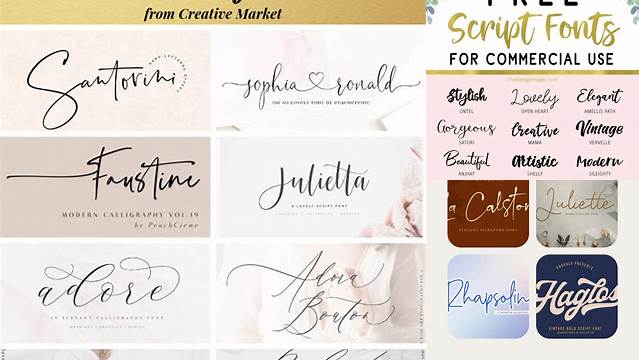
Top Free Script Fonts For Stunning Logos
Hey there, design enthusiasts! If you're on the hunt for the perfect script font to elevate your logo, but you're working with a tight budget, you've come to the right place. Creating a memorable logo doesn't have to break the bank. There's a treasure trove of amazing, free script fonts out there, just waiting to be discovered. This article is your ultimate guide to finding the very best free script fonts for logos, helping you add that touch of elegance, personality, and professionalism without spending a dime. We'll dive into the characteristics that make a script font ideal for logos, explore various styles, and highlight some of the top-notch free options available. Get ready to transform your logos with some seriously stylish typography! Let's get started, shall we?
H2: Understanding Script Fonts in Logo Design
Alright, before we jump into the fonts themselves, let's chat about why script fonts are so popular in logo design. Guys, script fonts are essentially fonts that mimic handwriting. They can range from super formal and elegant, like a classic calligraphic style, to more casual and playful, resembling everyday penmanship. They bring a human touch to a logo, making it feel more approachable and personalized. Script fonts are fantastic for logos because they can communicate various brand personalities. A sleek, flowing script can convey sophistication and luxury, making it perfect for brands targeting a high-end audience. On the other hand, a more whimsical script can represent a fun, friendly, and youthful brand. It's all about matching the font's style to your brand's core values and target audience. The goal is to make a strong visual impression and establish a connection. When choosing a script font for a logo, consider readability. While these fonts can be beautiful, some can be challenging to read at smaller sizes. Ensure the font is legible, especially in digital formats. The script font should also complement the overall design. Consider the weight, spacing, and flourishes of the font to ensure it blends seamlessly with the other elements of your logo. The right script font can make your logo stand out and become instantly recognizable. So, as you can see, understanding how to apply the right script font to your logos is crucial for your design's success.
H3: Key Characteristics of Effective Script Fonts for Logos
So, what makes a script font truly effective for a logo? Let's break down the key characteristics you should be looking for. First and foremost, readability is critical. Your logo needs to be instantly recognizable and easy to understand at a glance. Avoid fonts that are overly ornate or complex. The best script fonts for logos strike a balance between style and clarity. Next, consider the personality of the font. Does it match your brand's vibe? A font with a classic, elegant style might suit a luxury brand, while a more modern, playful script could be perfect for a startup or a creative business. Also, the versatility of the font is essential. Can the font be used in various applications – from websites and business cards to social media profiles? A good script font should look great across different platforms. The font's weight and style also matter. A delicate, thin script can convey elegance, while a bolder font might be better suited for grabbing attention. Remember to test the font in various sizes and colors to ensure it maintains its impact. Finally, pay attention to the licensing. With free fonts, it's vital to check the license to ensure it permits commercial use. Make sure you can use the font on your logo without any legal issues. By focusing on these characteristics, you'll be well on your way to choosing a script font that not only looks great but also effectively represents your brand. These features must work together to create an awesome design. If all of these things come together and work, then your logo will make an impression.
H2: Exploring Different Script Font Styles for Logos
Alright, let's explore the diverse world of script font styles. Knowing these styles will help you choose the best one for your logo. Formal Script fonts are elegant, classic, and often inspired by calligraphy. These are perfect for brands that want to convey a sense of sophistication, tradition, or high-end quality. Casual Script fonts have a more relaxed, handwritten feel. They're ideal for businesses that want to appear approachable, friendly, and modern. Then there are Brush Script fonts, which mimic the look of a brush and ink. These fonts offer a bold, dynamic look and can add a creative, artistic touch to your logo. Next, there are Modern Script fonts, often characterized by clean lines and a contemporary feel. They're great for brands that want to project a stylish, up-to-date image. We also have Handwritten Script fonts, which emulate natural handwriting styles. They offer a personal and authentic touch, perfect for businesses that value individuality and creativity. Lastly, there's Calligraphic Script fonts, which are highly decorative and often feature elaborate flourishes. These fonts are best used when you want a strong visual impact and want to emphasize elegance. Each style has its own unique characteristics. Choosing the right style depends on your brand's personality, target audience, and the overall message you want to communicate. You need to consider all these things so that your logo can deliver its best.
H3: The Elegance of Formal Script Fonts in Logo Design
Let's dive deeper into formal script fonts. These fonts are characterized by their classic, elegant look. They often draw inspiration from traditional calligraphy and are perfect for brands that want to convey sophistication and prestige. These fonts feature a flowing, graceful style that exudes a sense of luxury and refinement. When using a formal script font in your logo, you instantly communicate a sense of timelessness. They are perfect for brands like high-end fashion, luxury goods, law firms, and other businesses aiming to attract a discerning clientele. When choosing a formal script, pay attention to the details. Look for fonts with consistent stroke thickness, balanced letterforms, and subtle flourishes. Readability is still important, even with formal scripts. Choose fonts that are beautiful and easy to read. You'll also want to make sure the font complements other design elements in your logo. Try pairing a formal script with a simple, clean sans-serif font for a balanced and professional look. If you get all of these things right, then your logo will have an impact. The result will be a logo that exudes elegance, making a lasting impression on your audience and reinforcing your brand's premium image.
H2: The Charm of Casual Script Fonts for Logos
Now, let's explore casual script fonts, which are the opposite of formal scripts. These fonts have a more relaxed, friendly, and approachable feel. If you want your brand to be seen as down-to-earth and fun, a casual script font might be your perfect match. They mimic the look of natural handwriting, and they create a sense of authenticity and warmth. Casual script fonts are perfect for a variety of businesses, especially those that want to connect with a younger, more modern audience. Think of startups, creative agencies, and brands in the food and beverage industries. These fonts can add a touch of personality and approachability to your logo. Unlike formal scripts, casual scripts often feature a more playful style, with variations in stroke thickness, letterforms, and sometimes even a touch of imperfection that makes them feel uniquely human. When using a casual script, consider the overall tone you want to convey. If you want a fun vibe, pair your font with bright, bold colors. If you want something that's slightly more sophisticated, opt for a softer color palette. Readability is still vital. Make sure your chosen font is easy to read at various sizes. Casual scripts create a logo that is not only visually appealing but also relatable, making your brand more accessible to your target audience.
H3: Best Practices for Using Script Fonts in Logos
Okay, now let's talk about some best practices for using script fonts in your logos. First and foremost, keep it simple. Avoid using overly elaborate or complex script fonts. The best logos are often those that are easily recognizable and memorable. Make sure the script font is legible, even at smaller sizes. Readability is vital, especially when your logo appears in various applications, like on a website, business card, or social media. Consider the overall design. Pair your script font with a complementary font, such as a clean, simple sans-serif font. This contrast can create a balanced and visually appealing look. Also, it's very important to ensure the font works well with your brand's personality and the message you want to convey. If your brand is all about fun and creativity, choose a more playful script font. If you are a high-end brand, choose a more elegant one. Don't go overboard. Avoid using too many different fonts in your logo. This can make the design appear cluttered and confusing. Stick to a maximum of two or three fonts. Finally, remember that your logo needs to be versatile. It should look good in various colors, sizes, and formats. Consider how it will look on different backgrounds and applications. Follow these best practices to create a logo that is not only visually stunning but also effective in representing your brand.
H2: Top Free Script Fonts for Logos: A Comprehensive List
Alright, let's get to the good stuff. Here's a list of some of the best free script fonts for logos. Remember to always check the license before using any font commercially. Playlist Script is a gorgeous handwritten font that adds a touch of personality to your logos. It's perfect for brands that want to appear friendly and approachable. Great Vibes is an elegant, flowing script font with a classic feel. This font is perfect for luxury brands or those aiming to exude sophistication. Dancing Script is a more casual and playful font, giving logos a fun and friendly vibe. Pacifico is a vintage-inspired script font with a retro feel. This font can add a nostalgic touch to your logos. Satisfy is a modern, stylish script font. Perfect for brands that want to project a contemporary image. These are just a few examples. The world of free script fonts is vast, and there are many more options out there. Take your time to explore different fonts and find the ones that best suit your brand's unique personality and style. Don't be afraid to experiment! Once you find a font you love, make sure it meets the requirements. Good luck!
H3: Detailed Review of Popular Free Script Fonts for Logo Design
Let's take a closer look at some of the popular free script fonts. We'll talk about what makes them special. Playlist Script is known for its natural, handwritten appearance. The font feels personal and inviting. It's a great choice for brands in the creative, food, or lifestyle industries. The font is easy to read. Great Vibes has a graceful and flowing style, perfect for creating a sense of luxury and elegance. Its classic design makes it suitable for brands targeting a sophisticated audience, like beauty, fashion, or wedding businesses. Dancing Script is a more lively and informal font, great for brands that want to portray a fun and friendly image. It's a great option for businesses targeting a younger audience. Pacifico is a vintage-inspired script that evokes a sense of nostalgia. Its retro aesthetic makes it perfect for brands that want to capture a vintage or retro feel. It is also good for a surfer-style aesthetic. Satisfy is a more modern and stylish font. Its clean lines and contemporary feel make it perfect for brands that want to project a modern and stylish image. It is good for fashion, or beauty brands. When choosing a font from this list, consider the overall look. The goal is to make a long-lasting impression. Take some time to try them and see what suits you the best.
H3: Recap: Key Takeaways for Choosing Script Fonts
Let's recap the key takeaways for choosing script fonts. Keep these points in mind. Readability. Legibility is the top priority. The font must be easy to read at all sizes. Brand Personality. Does the font match your brand? Choose a font that reflects your brand's values. Versatility. Does the font work across multiple platforms? Does the font look good in various applications? Consider Licensing. Always check the license. Make sure you can use the font for commercial use. Experiment with Different Fonts. Don't settle for the first font you find. Take your time, and choose the font that you love. Remember to practice, and be creative! If you remember these things, then your brand will be a success. Best of luck!